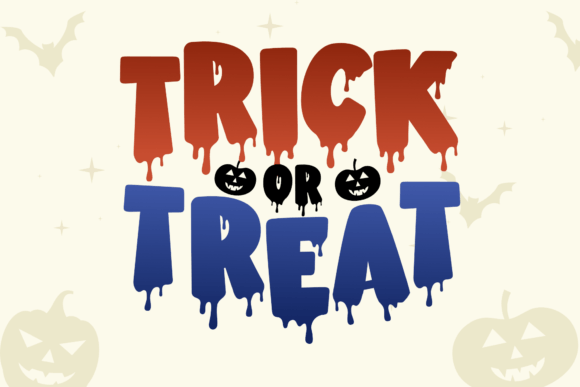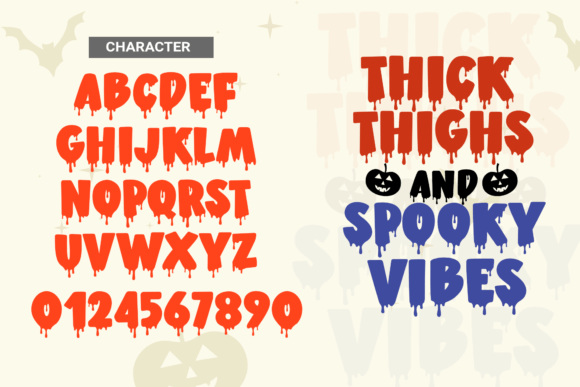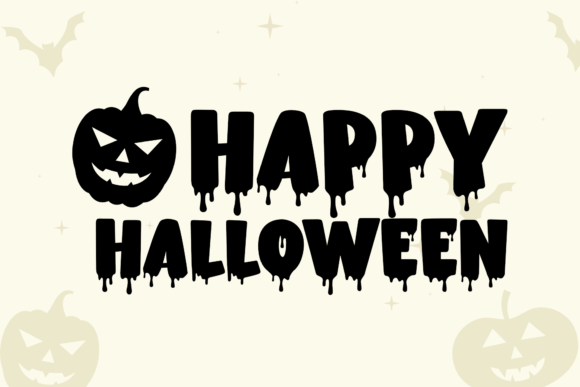
Introduction to Scary Drips Font
As a designer, there’s nothing quite like that moment of inspiration when a project suddenly comes to life. It’s the spark that sets off a chain reaction of creativity, and for many of us, it’s the thrill of the unknown that drives us to push the boundaries of our art. For those who love to craft spooky and eerie designs, there’s one font that’s sure to send shivers down your spine: the Scary Drips Font.
This wild and wacky display font is a must-have for any horror or Halloween project. With its dripping style and high-quality design, it’s the perfect addition to any creative project that requires a touch of the macabre. Whether you’re working on a poster, flyer, or social media graphic, the Scary Drips Font is sure to take your design to the next level.
Key Features of Scary Drips Font
- High-quality design resource ideal for creative projects, including horror-themed artwork and spooky graphics.
- Unique, hand-drawn design with a transparent background, allowing for seamless integration into various creative projects.
- Perfect for designers seeking a distinctive, high-quality font to elevate their creative project, such as horror-themed posters, book covers, or website designs.
Honest Review: Scary Drips Font
As a designer, I’m always on the lookout for unique and high-quality design resources to elevate my creative projects. Recently, I stumbled upon the Scary Drips Font and I’m excited to share my honest review.
- ✨ The font has a distinctive and spooky vibe that’s perfect for Halloween-themed projects or anything that needs a bit of a dark twist.
- ✨ The font comes with a transparent background, allowing for seamless integration into any design.
- ⚠️ The font is only available in a single weight, which may limit its versatility in certain design applications.
- ⚠️ Some characters may require manual adjustment to achieve the desired spacing and alignment.
Overall, I’m impressed with the Scary Drips Font and its potential to add a unique touch to creative projects. While it has some limitations, its high quality and free download make it a valuable design resource.
The Scary Drips Font is perfect for Halloween-themed designs, spooky invitations, and horror movie posters. It can also be used for other creative projects, such as video game designs or dark fantasy art.